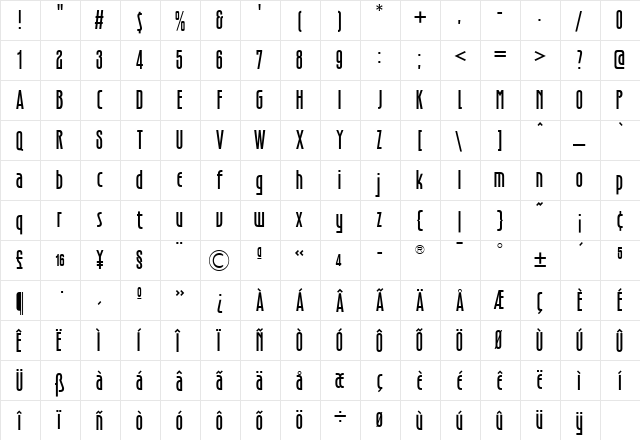
TFHotelmodTwo Medium
| Year | 1987 |
Design Context for TFHotelmodTwo Typeface
TFHotelmodTwo offers clean, dependable letterforms without strong stylistic allegiance, making it a practical choice for designers who need flexibility.